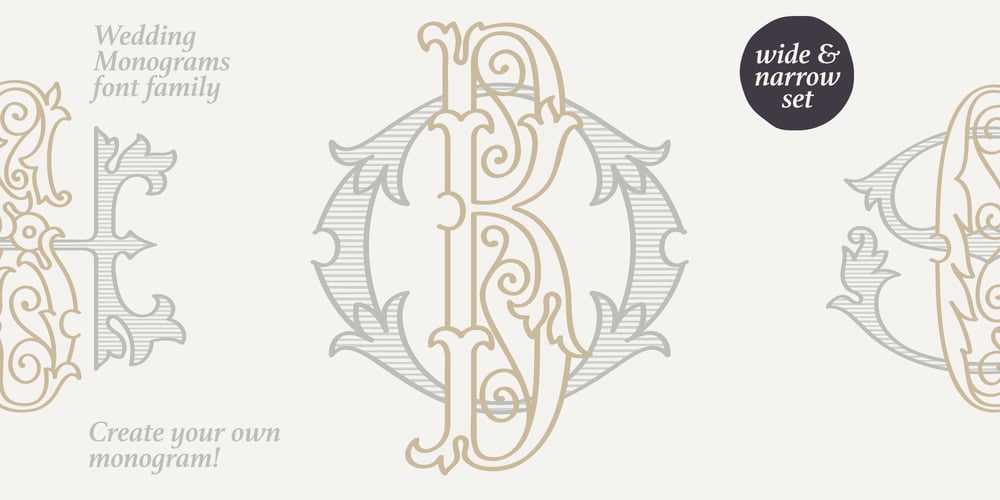
Wedding Monograms Font Family was designed by Roman Korolev and published by Kaer. Wedding Monograms contains 7 styles and family package options. Wedding monograms is a font family in elegant historical style. This family of two character monograms was inspired by “Course of women’s needlework” published in 1887.You’ll get the set includes Wide and Narrow capitals, so you can make your own monogram, by combining letters you want. —Please note, you should use graphic applications such as Adobe Illustrator or Photoshop, but not Microsoft Word. All you need is put Narrow initial on the top of Wide. You can use color fonts in PS CC 2017+, AI CC 2018+, ID CC 2019+, macOS 10.14 Mojave+ Please note that the Canva & Corel & Affinity doesn’t support color fonts!—Please feel free to request any help you need: kaer.pro@gmail.comBest, Roman.